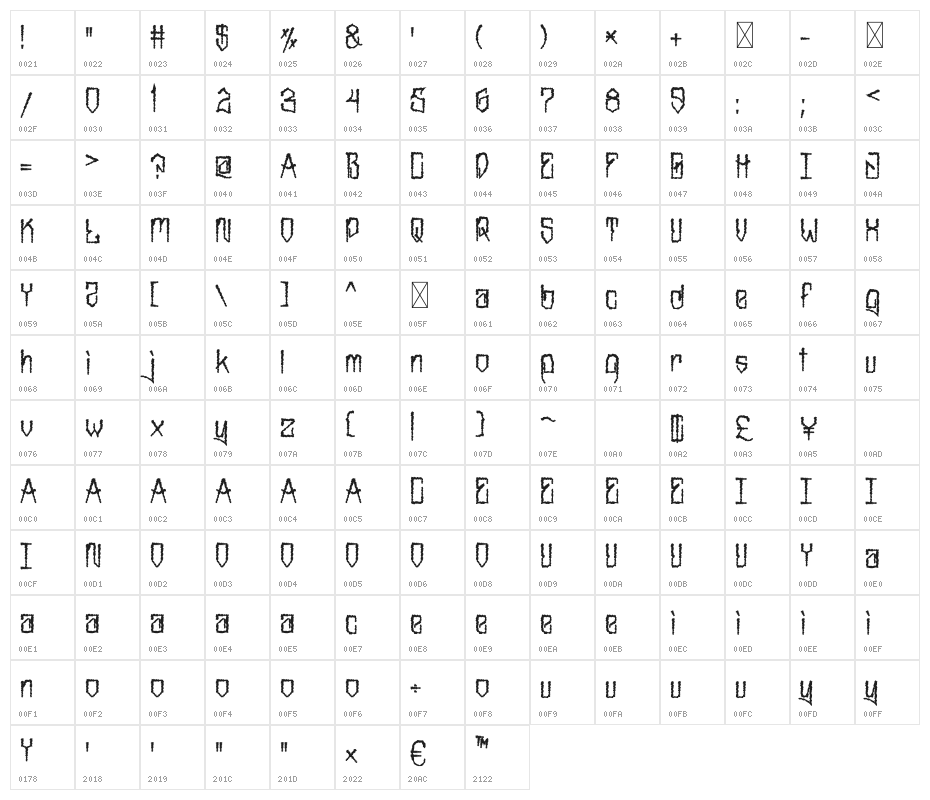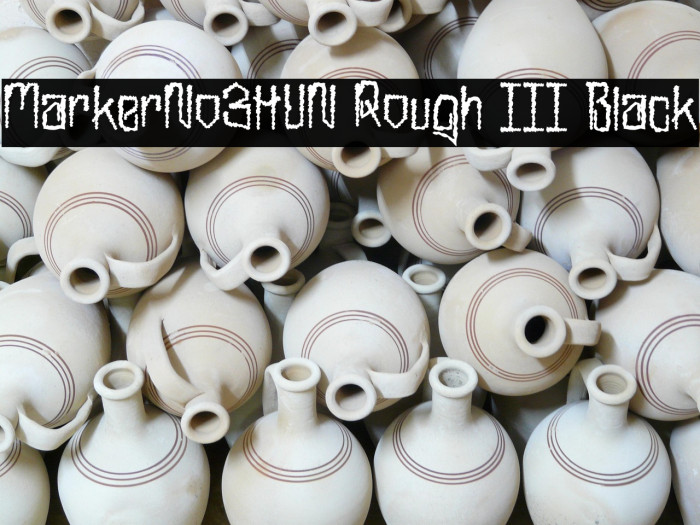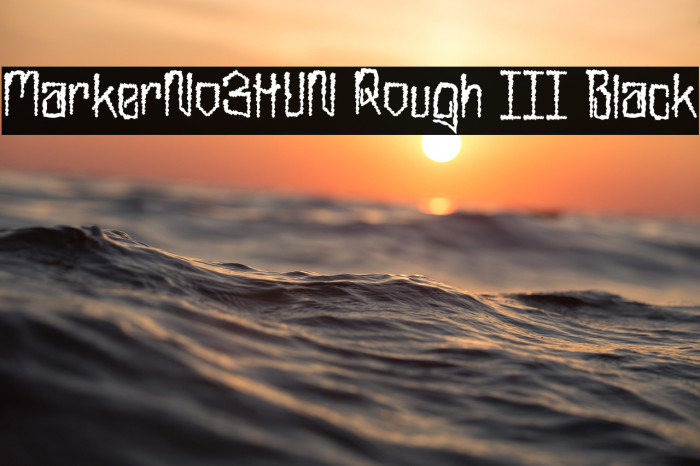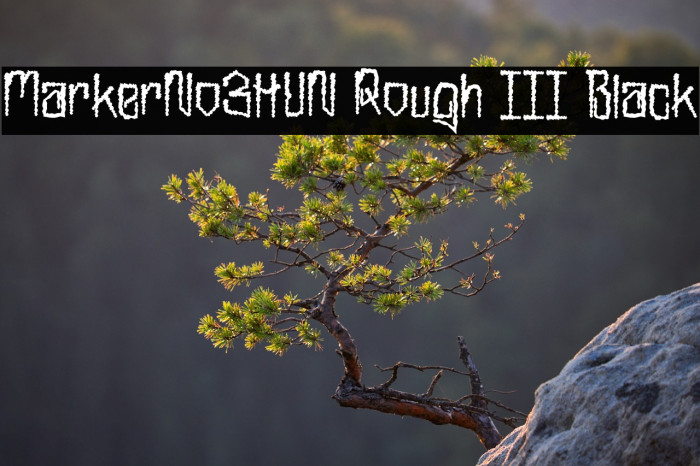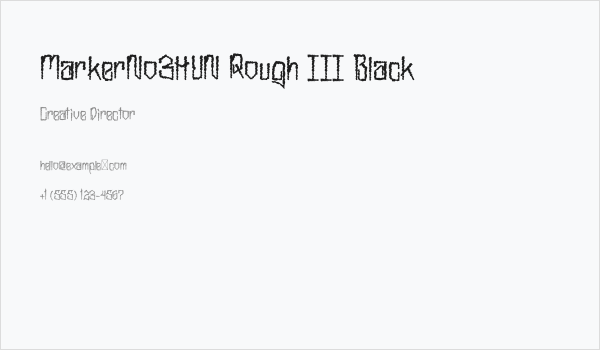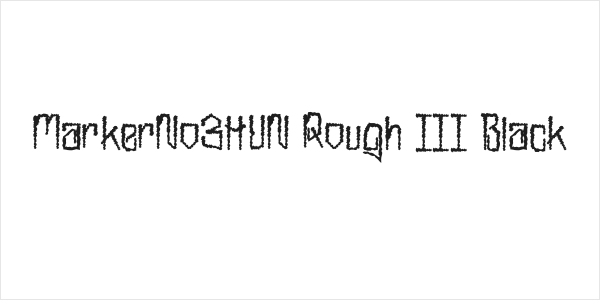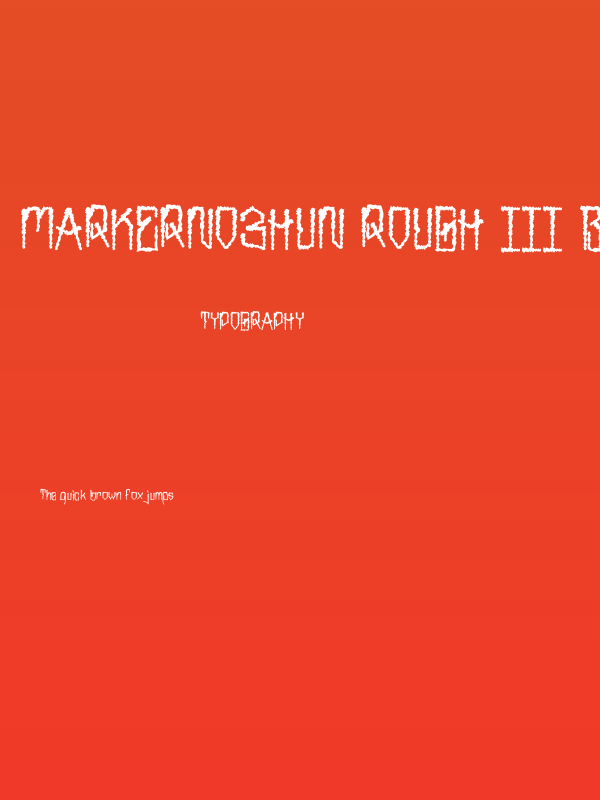
MarkerNo3HUN Rough III Black Font
MarkerNo3HUN Rough III Black Description
This font features a rugged, textured appearance that mimics the look of rough, hand-drawn strokes. The characters have an irregular, jagged edge, giving them a dynamic and edgy feel. The uppercase and lowercase letters maintain a consistent style, with each character exhibiting unique variations in its roughness. Numbers and special characters follow the same aesthetic, ensuring a cohesive look across all elements. This font's bold and striking design makes it ideal for projects that require a strong visual impact.
| Proposed Projects | Ideal for posters, album covers, graffiti art, and any project needing a bold, artistic touch. |